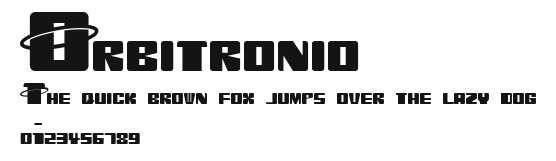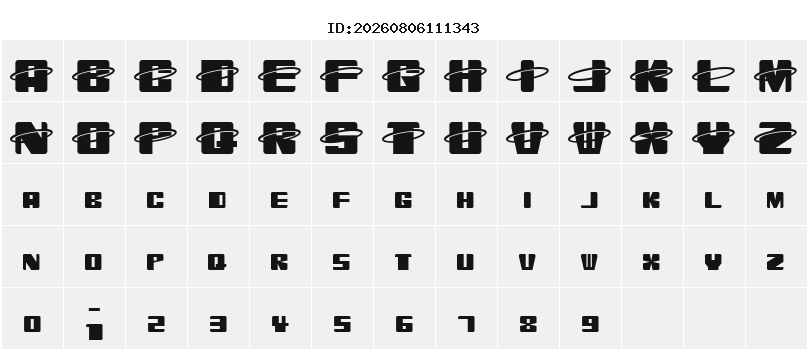
• Font Name: Orbitronio
About Orbitronio.ttf
Orbitronio.ttf is a modern, elegant sans-serif font designed for ultimate readability and visual harmony. Perfect for branding, headlines, web design, and print materials.